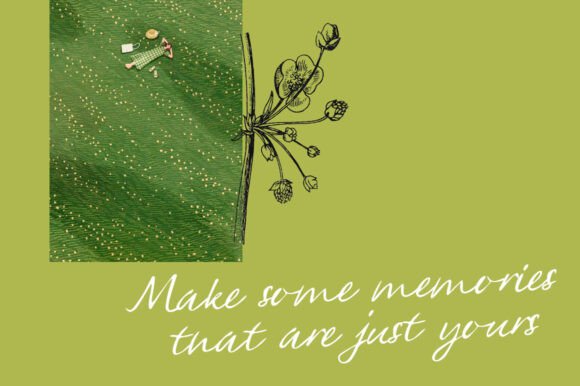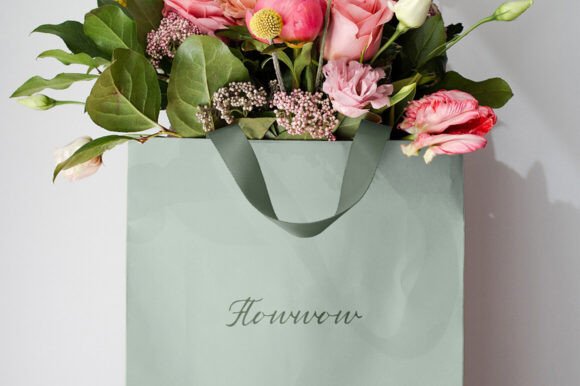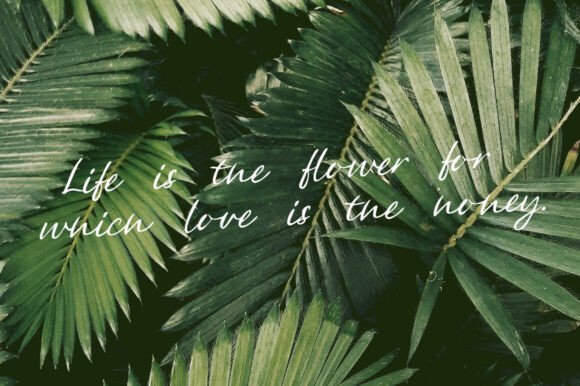
Introduction to Mandragora Font
As a designer, there’s nothing quite like the thrill of bringing a creative project to life. Whether you’re working on a children’s book, a greeting card, or a DIY craft tutorial, the right font can make all the difference. I recall the countless hours spent searching for the perfect font to add a touch of whimsy to my design. And then, I stumbled upon the Mandragora Font – a game-changing script font that has been a staple in my design arsenal ever since.
What sets the Mandragora Font apart is its unique blend of playfulness and sophistication. This versatile font is perfect for designers looking to add a touch of elegance to their high-quality design projects. With its transparent background and free download option, it’s an invaluable resource for creatives on a budget.
Key Features of Mandragora Font
- High-quality design resource for creative projects, featuring a unique, intricate design.
- Includes a range of font styles, from bold to light, to cater to different design needs.
Honest Review: Mandragora Font
As a designer, I’ve had the opportunity to work with a wide range of fonts, but the Mandragora Font has truly stood out. Its unique, mystical design makes it a great addition to any creative project, adding a touch of elegance and sophistication.
Here are some aspects that I particularly appreciate about the Mandragora Font:
- ✨ High quality and crisp typography, perfect for print or digital use.
However, I do have a few limitations to note:
- ⚠️ Limited font sizes and styles available, which may restrict its use in certain creative projects.
- ⚠️ Some users may find the font’s mystical design too bold or overwhelming, depending on the context.
Overall, I’m thoroughly impressed with the Mandragora Font. Its unique design and high quality make it an excellent choice for designers looking to add a touch of sophistication to their projects. While it may have some limitations, I believe it’s a valuable addition to any design resource library.
Mandragora Font
The Mandragora Font is a high-quality, versatile design resource ideal for creative projects. It features a transparent background, making it easy to customize and integrate into various designs.
Tips for Getting the Most Out of Mandragora Font
Experiment with different font sizes, colors, and styles to achieve the desired look.
The Mandragora Font is ideal for:
- Graphic design projects.
- Social media graphics.
- Presentations.
- Reports and documents.